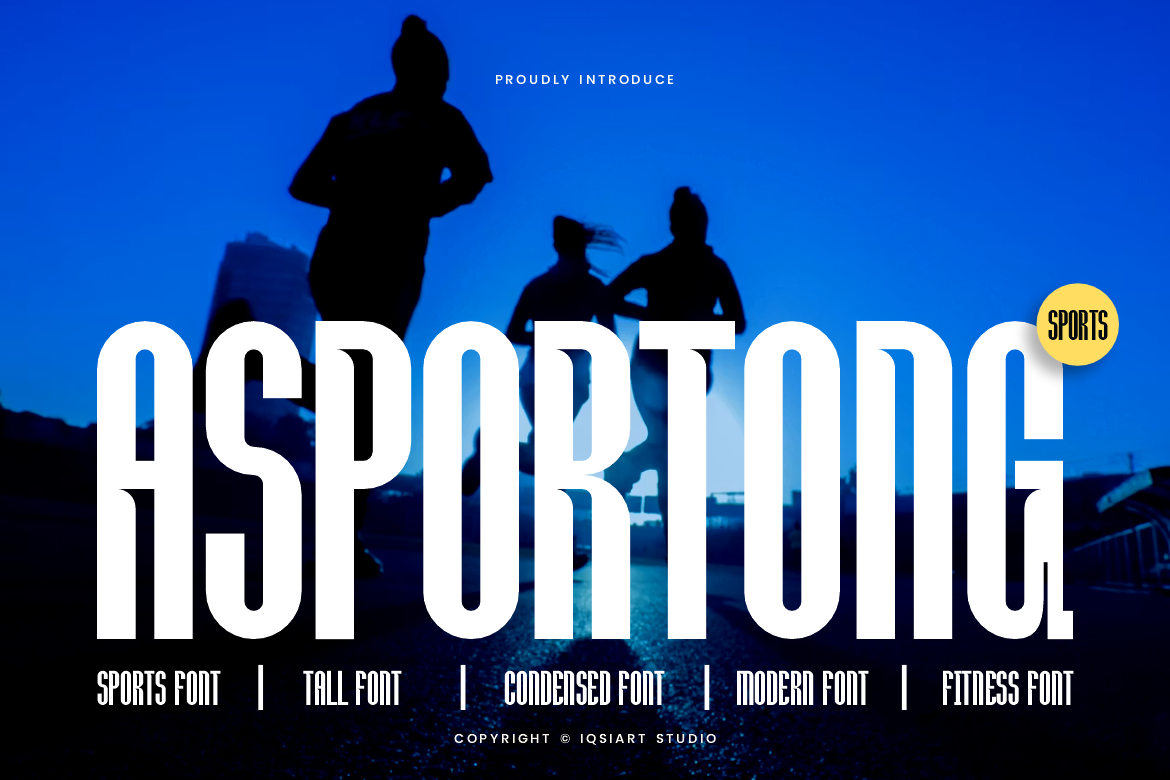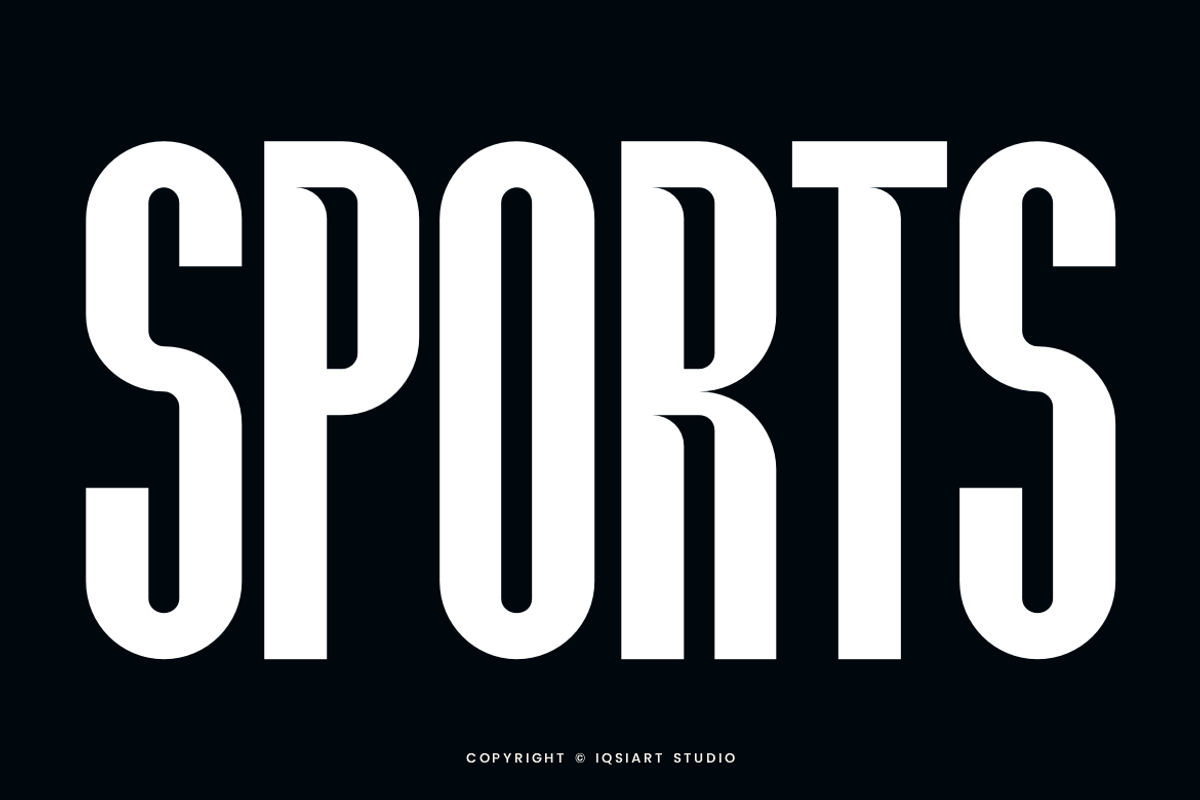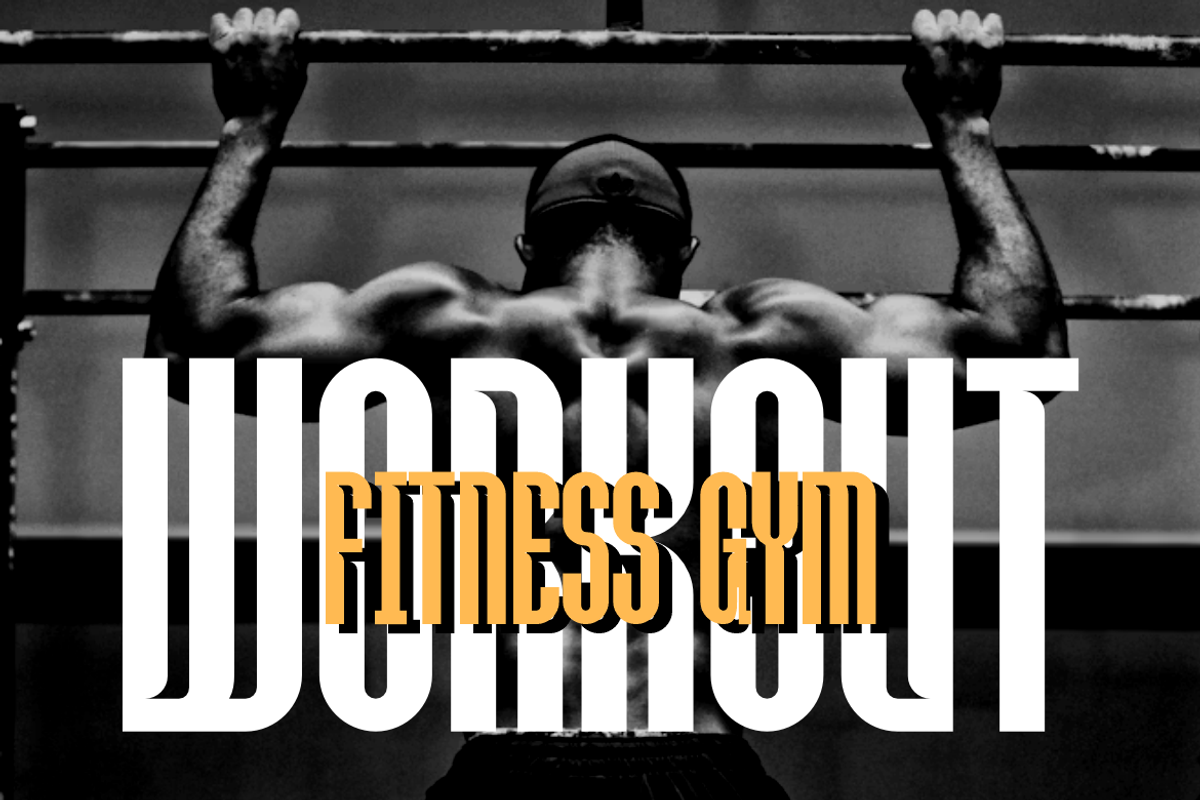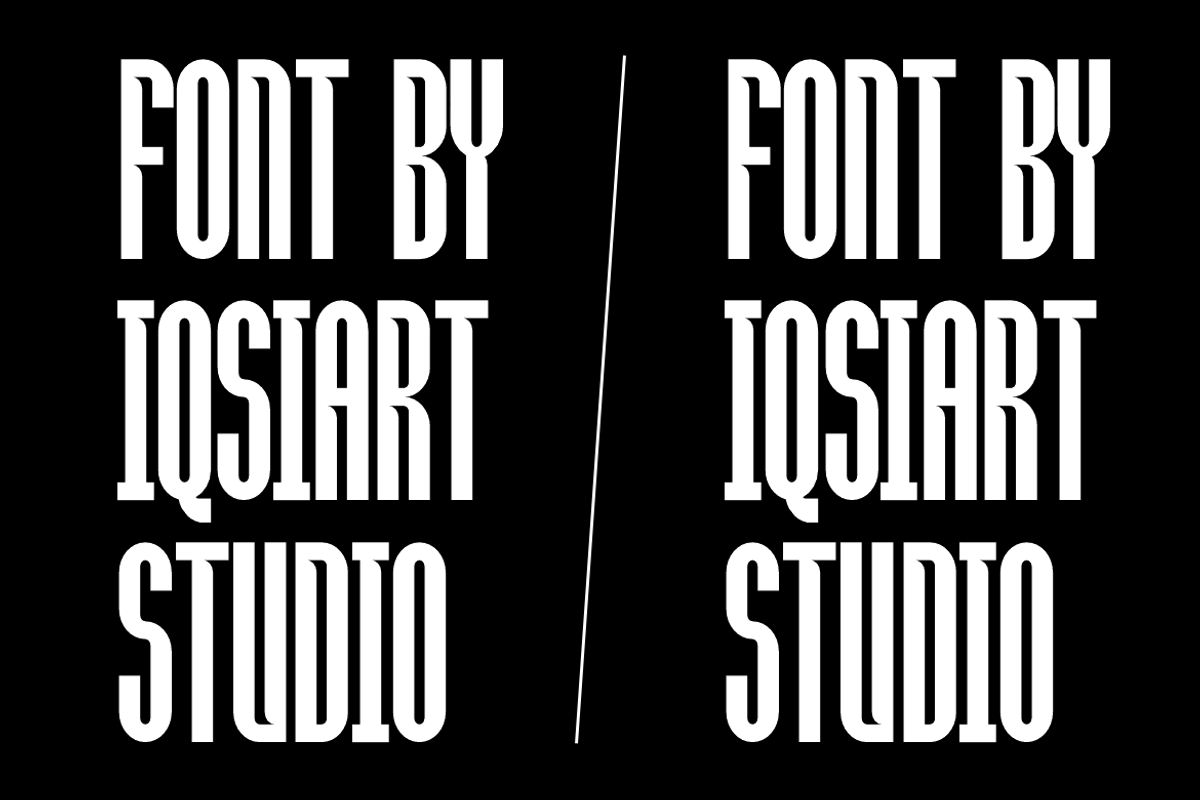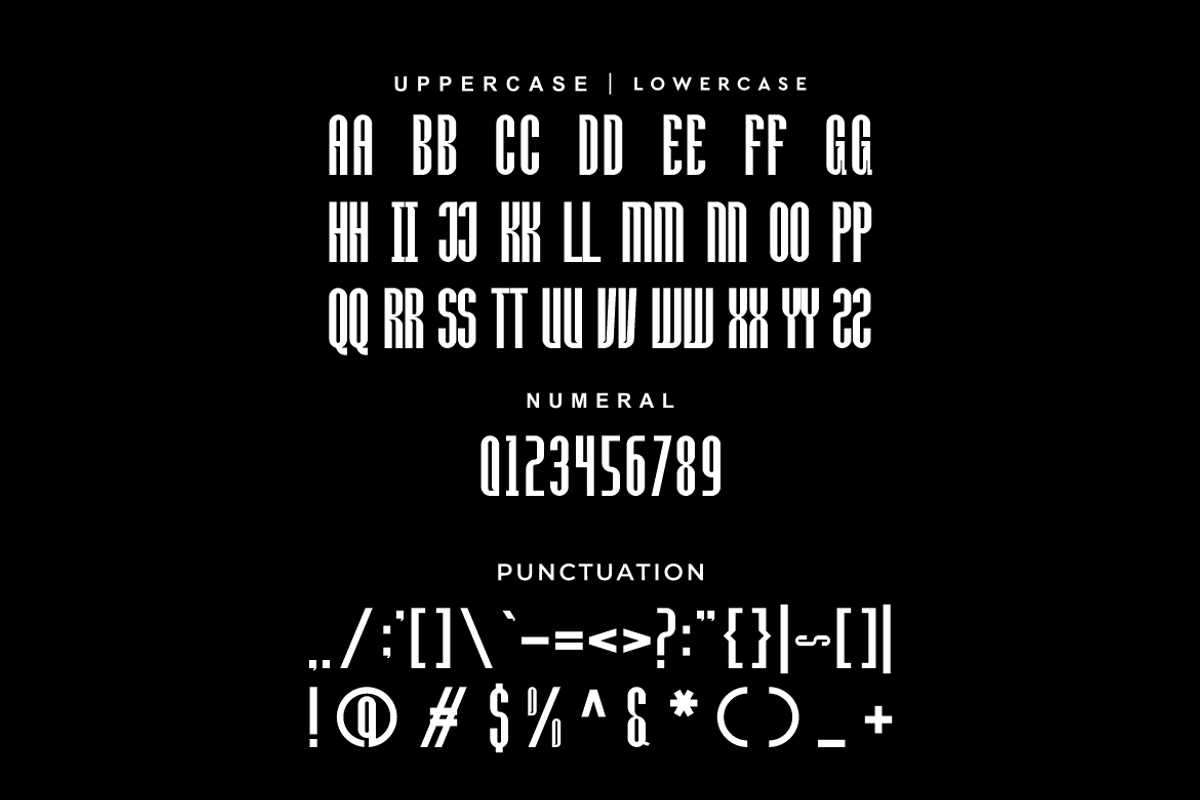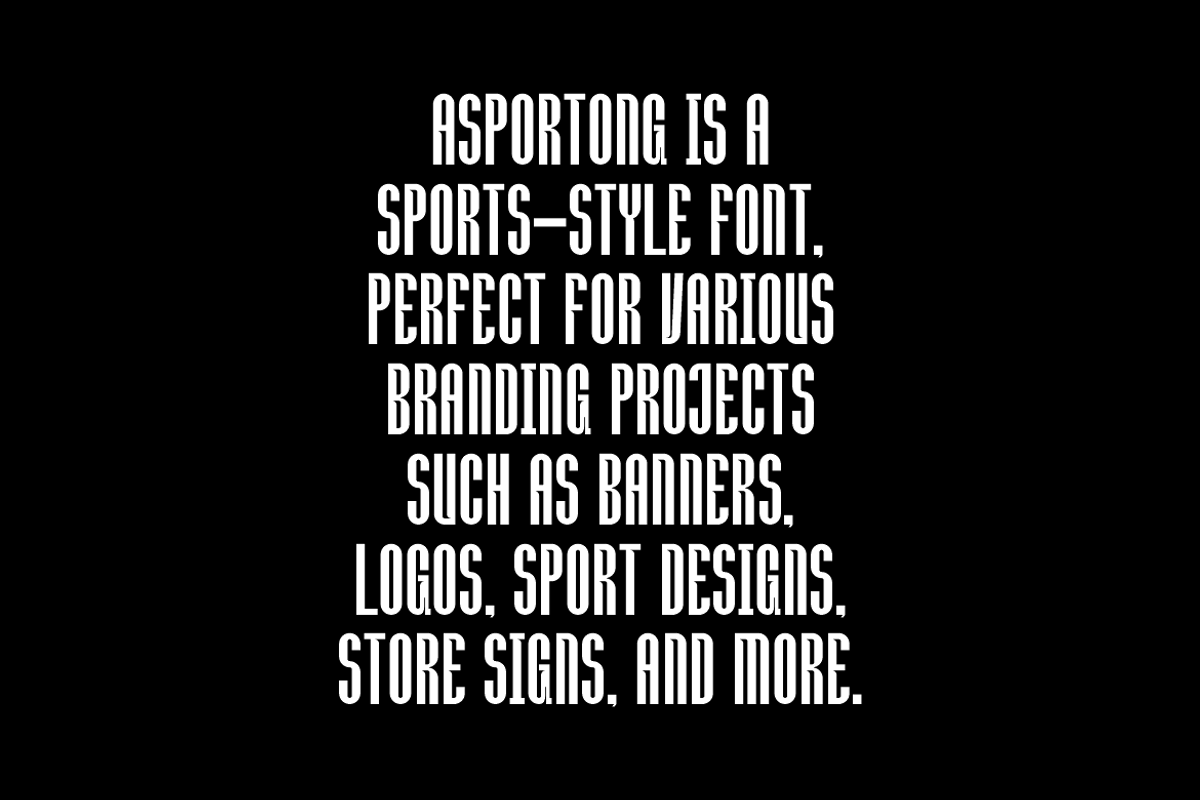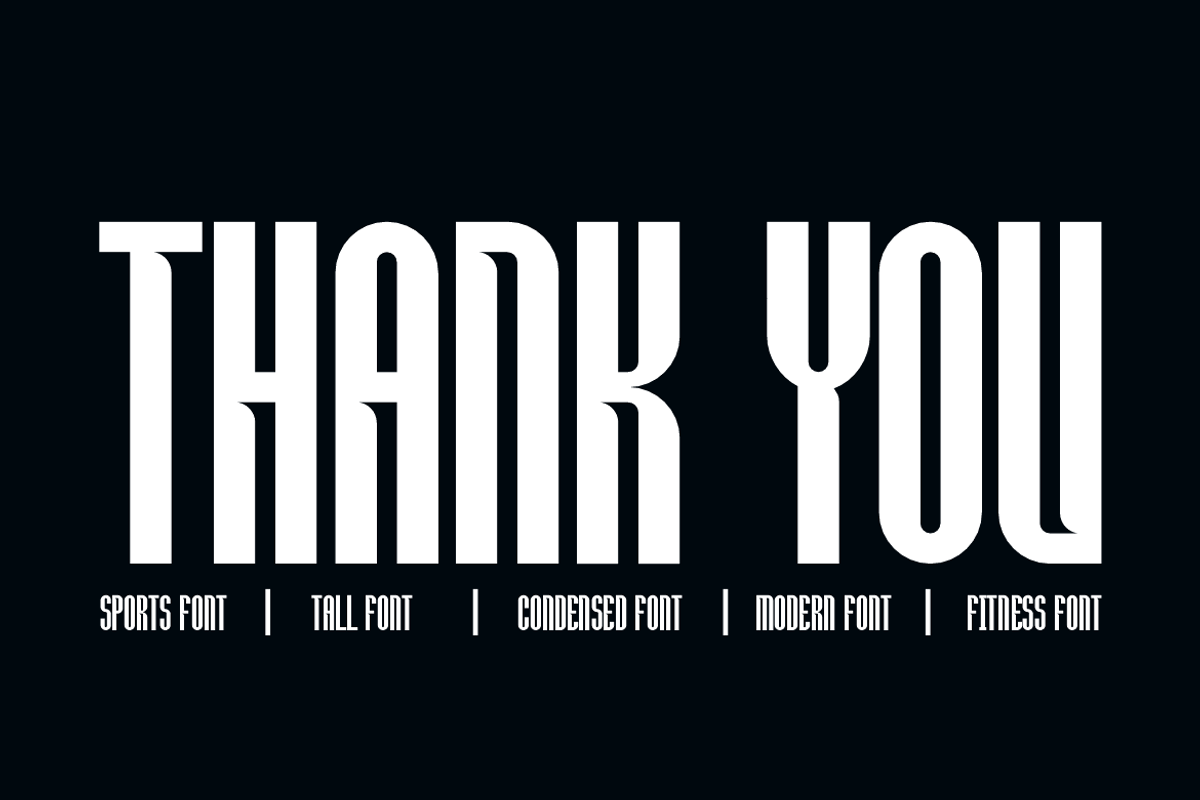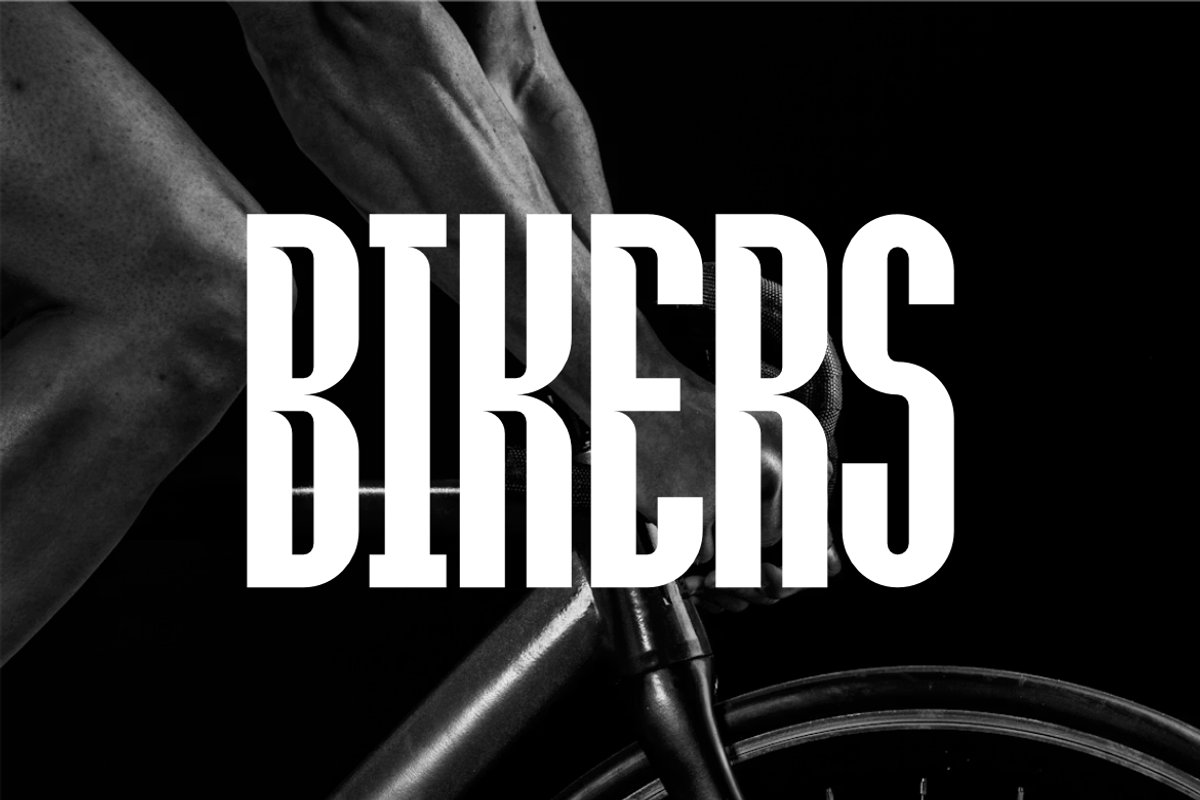
Asportong - Modern Sports Font
Asportong Font is a bold and authentic display typeface
that suits a variety of design needs. We offer a wide range of themes